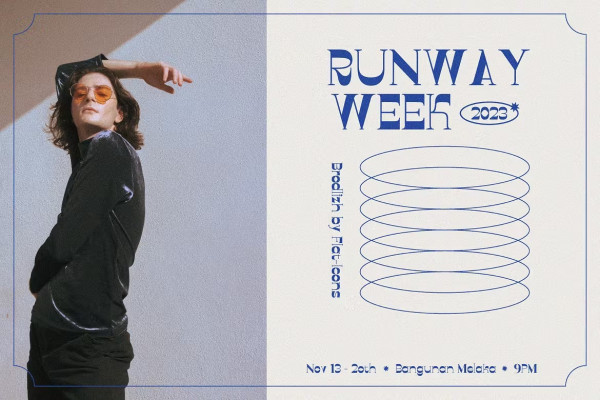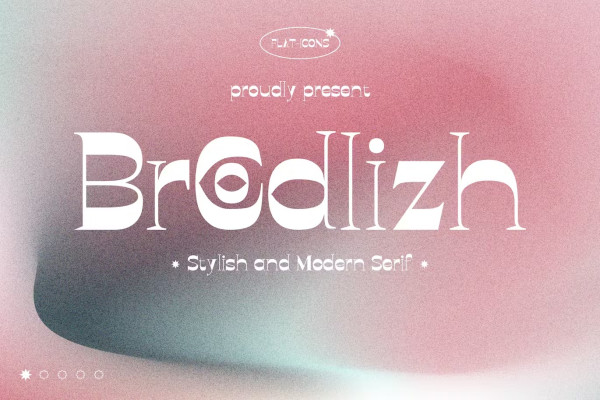
Brodlizh Font
Brodlizh Font, a sleek and modern serif. Perfected, sophisticated and trendy, Brodlizh fits perfectly with modern brands. From logos and branding to invitations and packaging, this serif will bring soul to your design